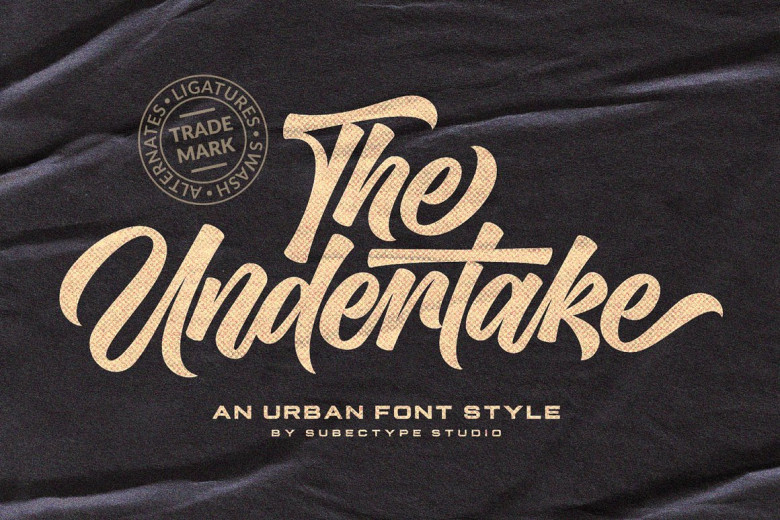
Undertake Font
Undertake font is a modern typeface inspired by vintage lettering typography from the 1970s and 80s, ideal for clothing design, apparel shirts, retro designs, procreate, stickers logos branding greeting cards.
Undertake Urban Script Font